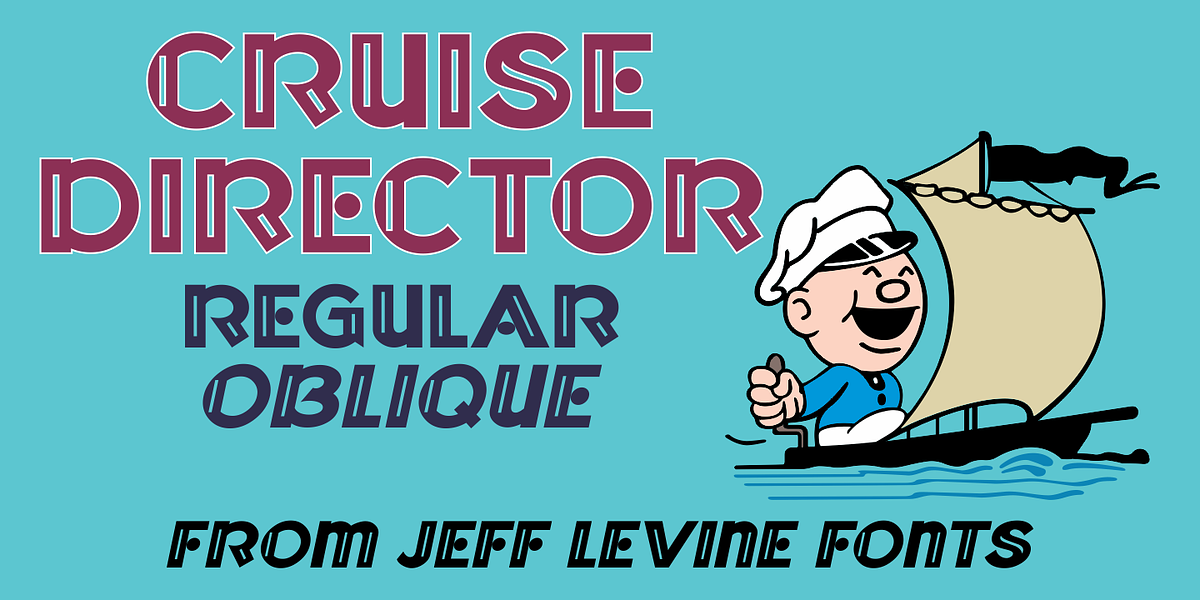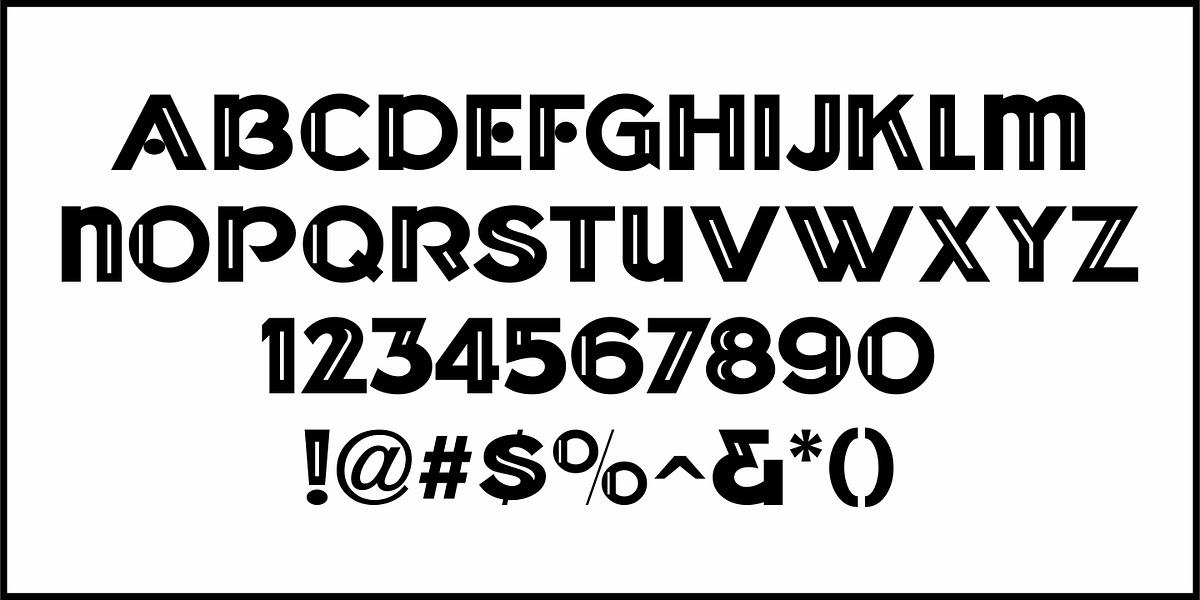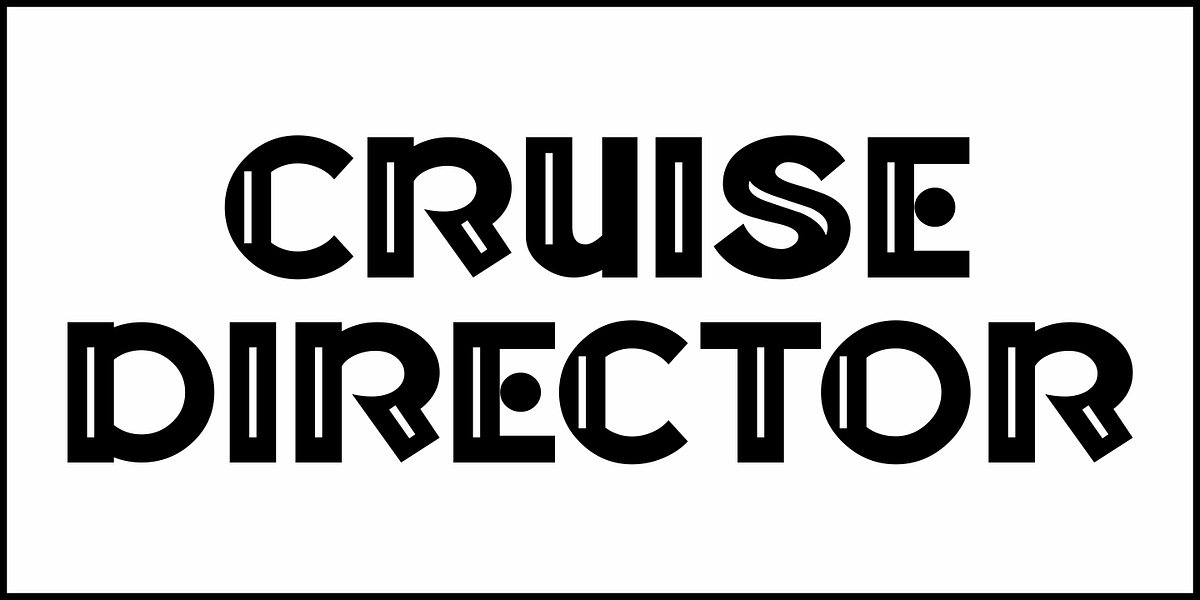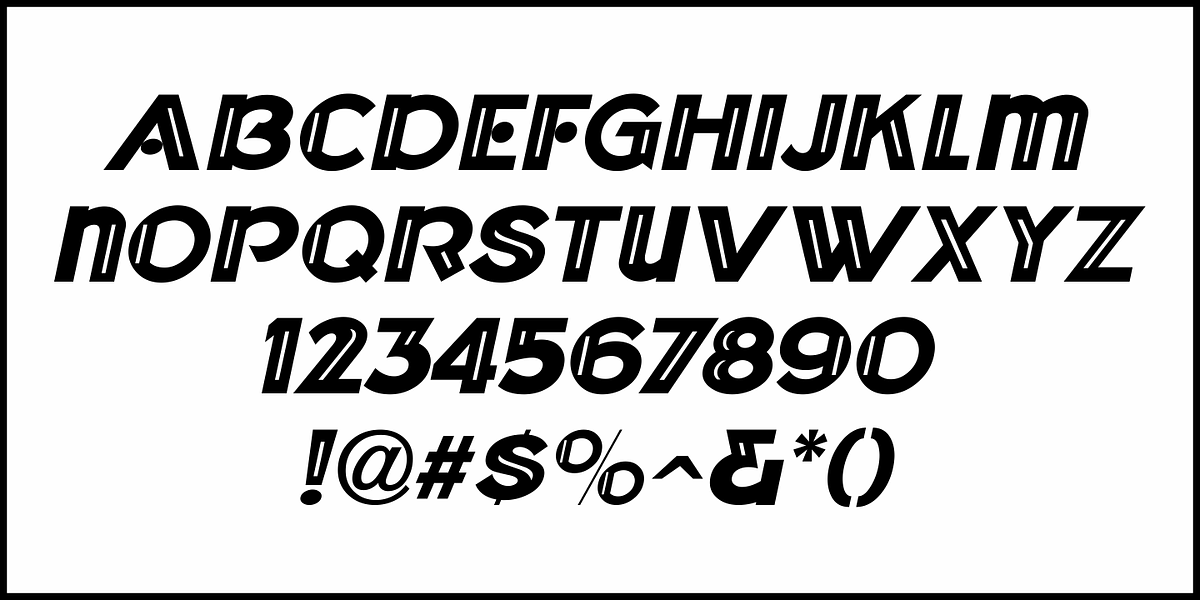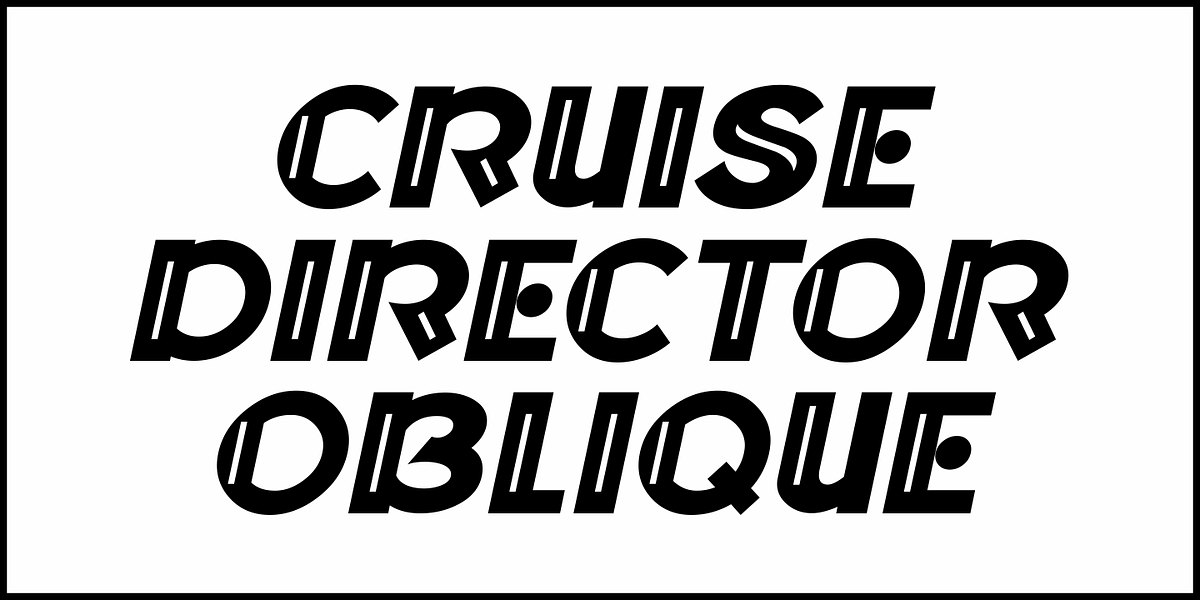
Cruise Director JNL
The hand-lettered title on the poster for the 1933 musical comedy film “Melody Cruise” was rendered in an Art Deco thick-and-thin style with ‘engraving lines’ placed within the letters.
This is now available as Cruise Director JNL in both regular and oblique versions.